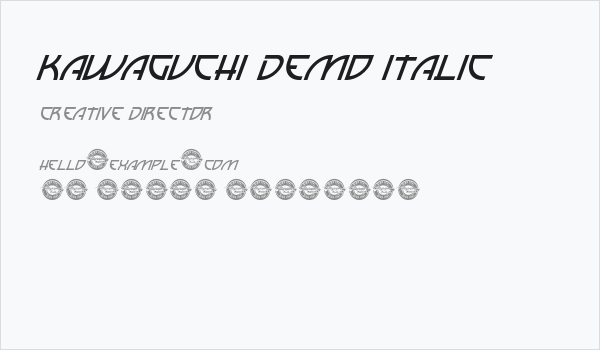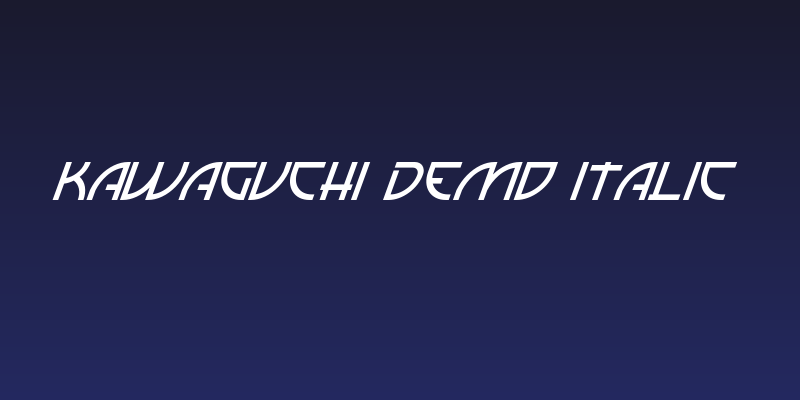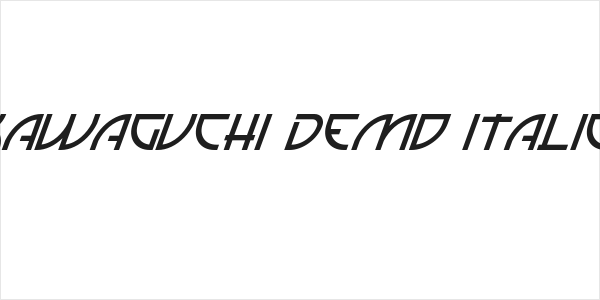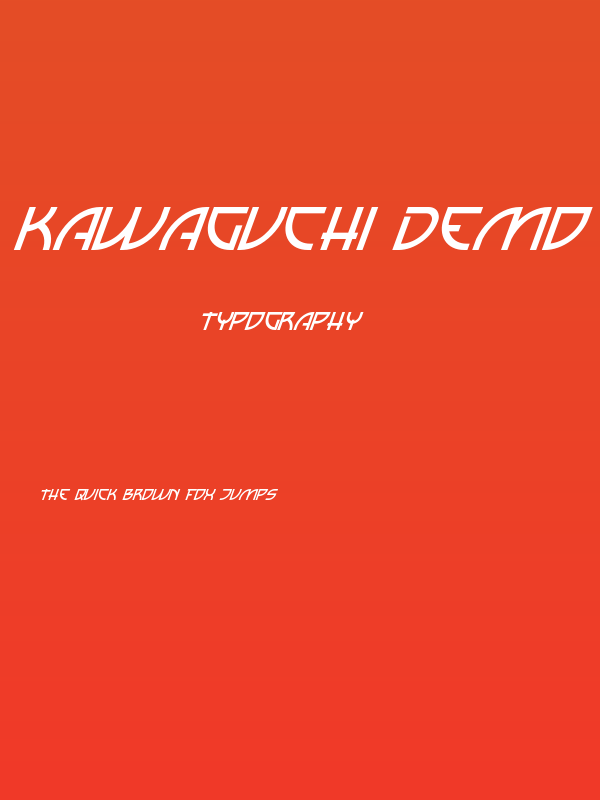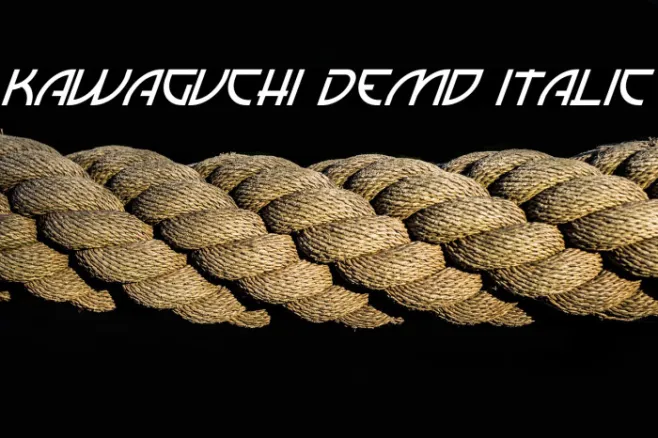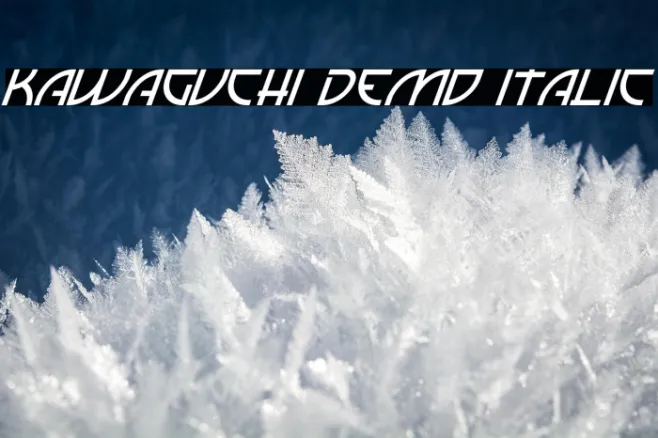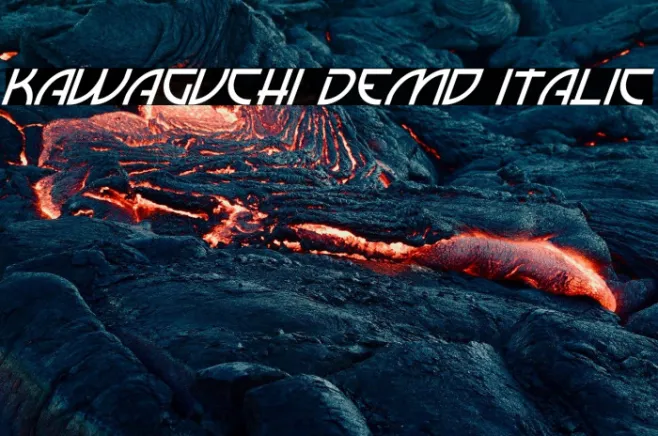
Kawaguchi Demo Italic Font
Kawaguchi Demo Italic Description
This font features a dynamic and modern italic style with sharp, angular lines that create a sense of motion and energy. The characters are slightly condensed, giving it a sleek and streamlined appearance. The uppercase and lowercase letters maintain a consistent slant, enhancing the italicized effect. The numerals and special characters are designed to match the overall aesthetic, ensuring uniformity across all text. This font is ideal for projects that require a contemporary and edgy look, such as sports branding, technology advertisements, or modern art displays.
| Proposed Projects | Ideal for sports branding, technology advertisements, and modern art displays. |